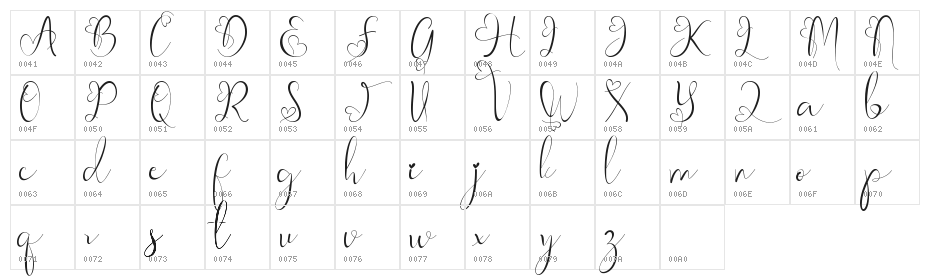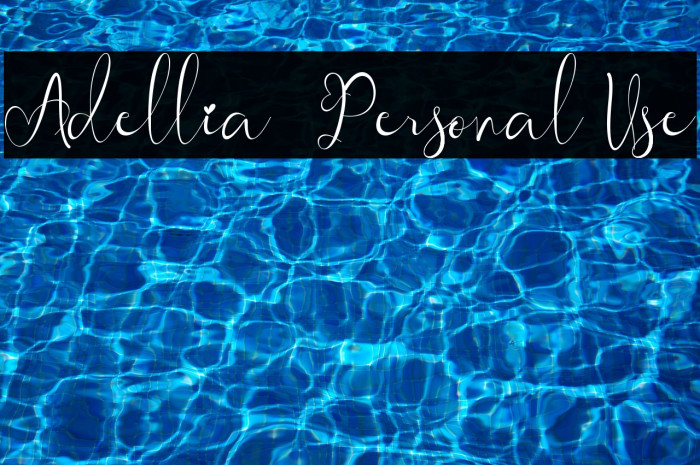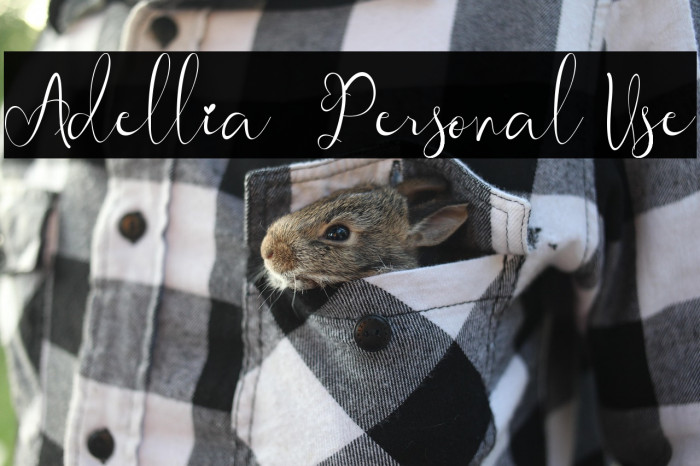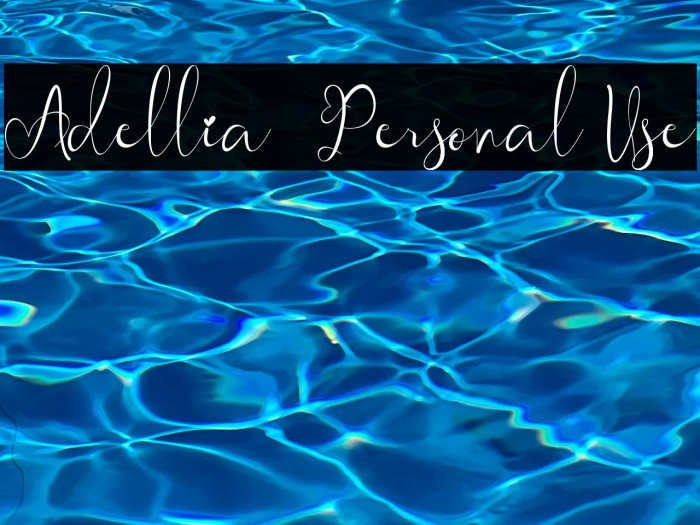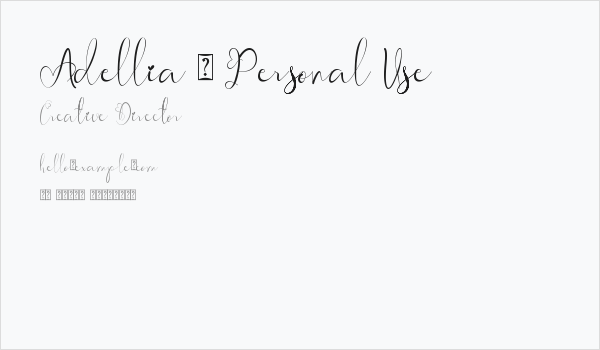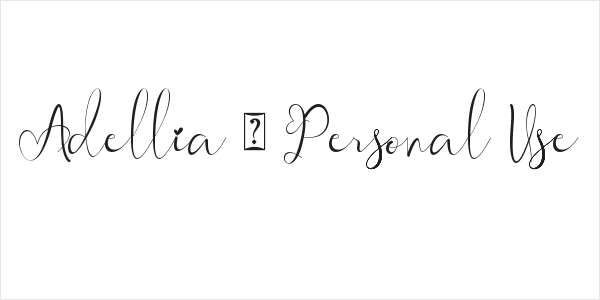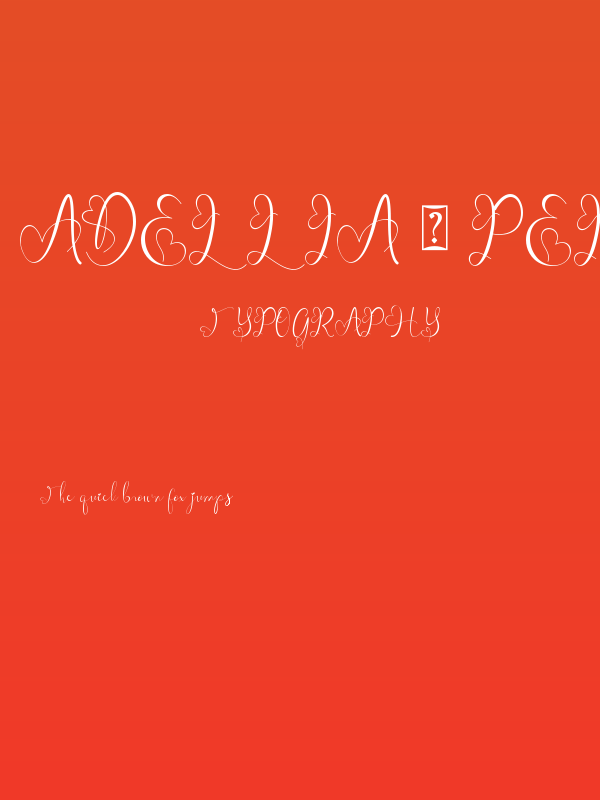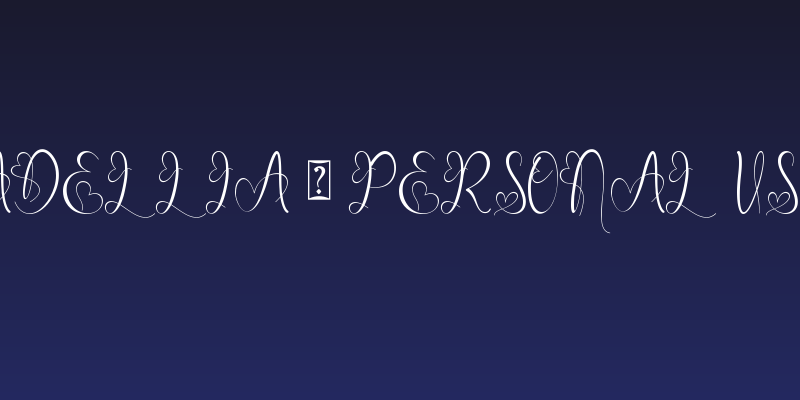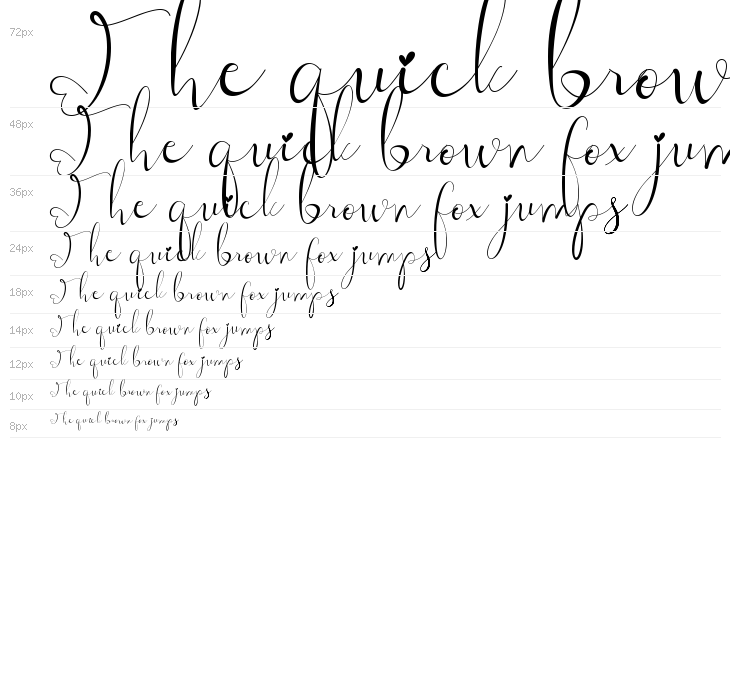
Adellia - Personal Use Font
Adellia - Personal Use Description
This font features an elegant and decorative script style with intricate loops and flourishes. The uppercase letters are adorned with heart-shaped embellishments, adding a romantic and whimsical touch. The lowercase letters maintain a fluid and connected appearance, enhancing the overall graceful aesthetic. The strokes vary in thickness, providing a dynamic contrast that emphasizes the ornate details. This font is perfect for creating a sophisticated and charming look, ideal for invitations, greeting cards, and other creative projects that require a touch of elegance.
| Proposed Projects | Ideal for wedding invitations, greeting cards, branding, and decorative projects. |